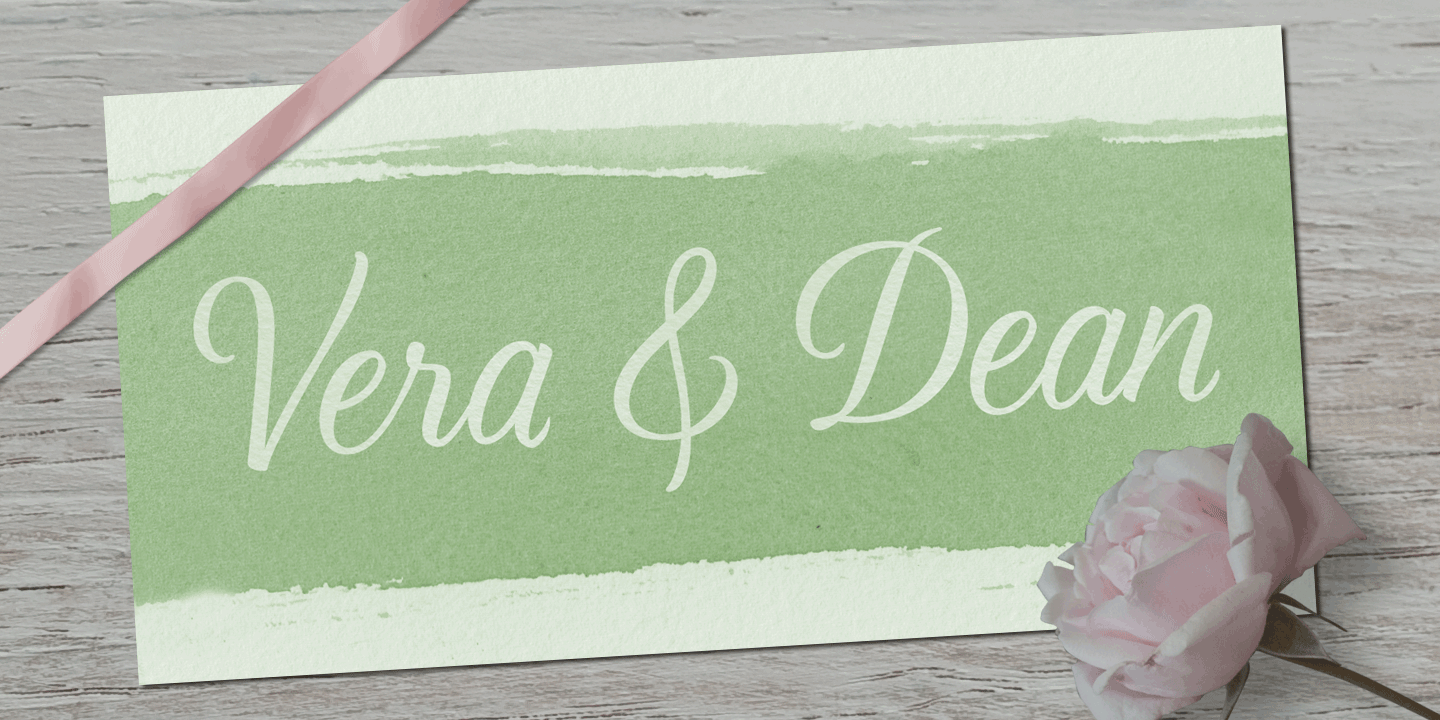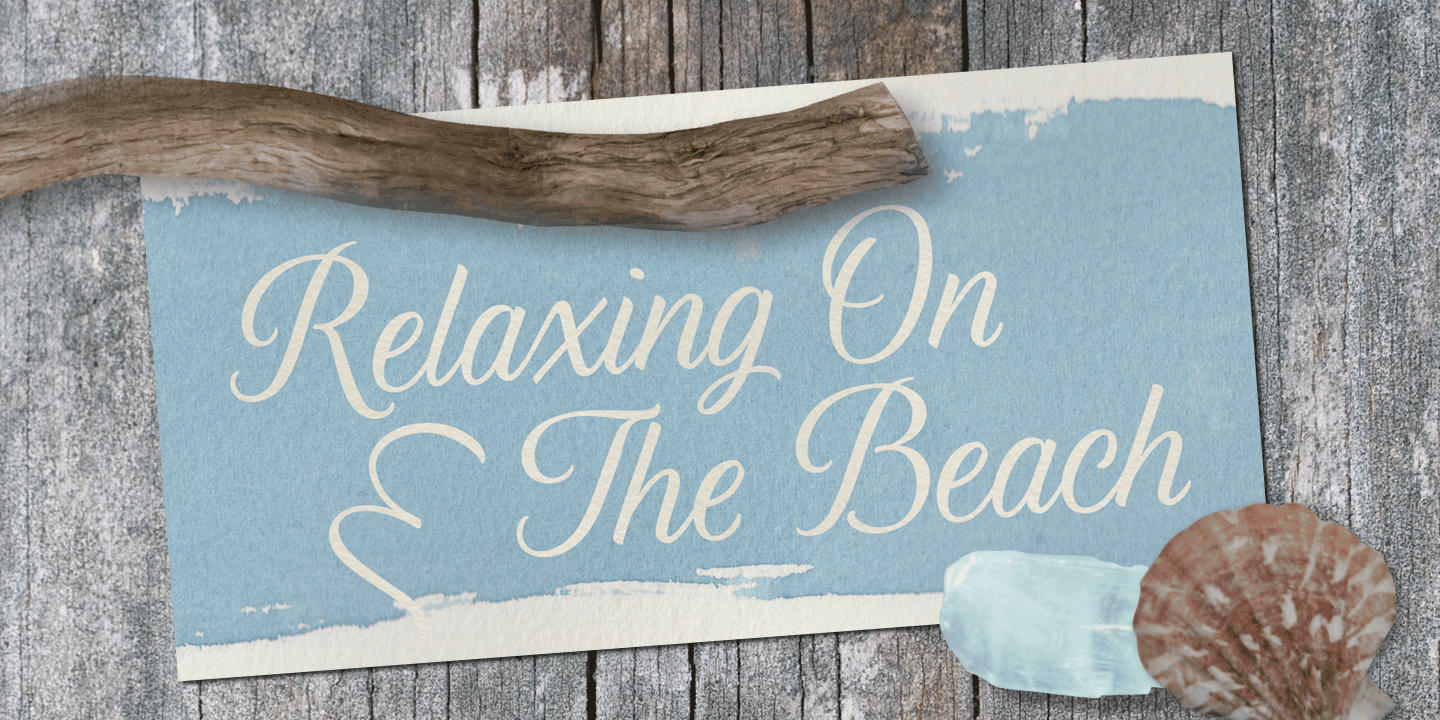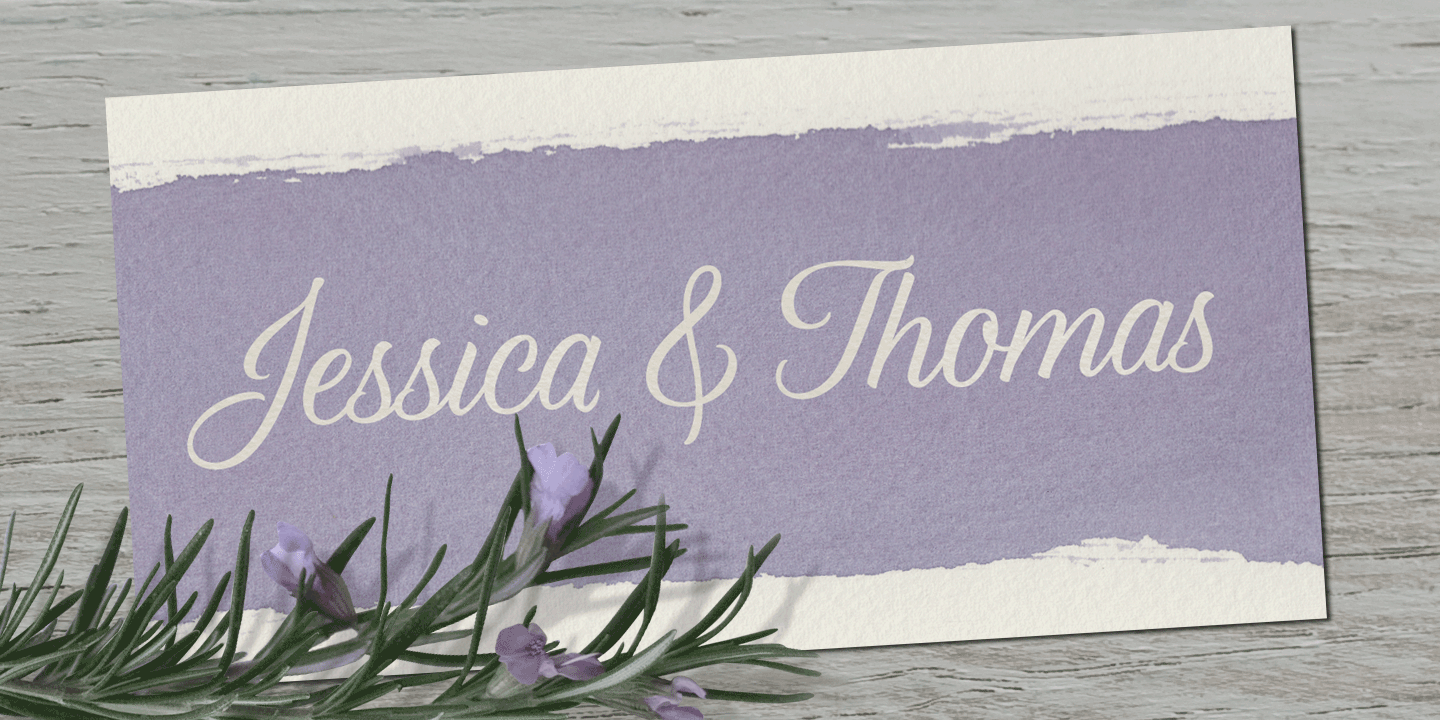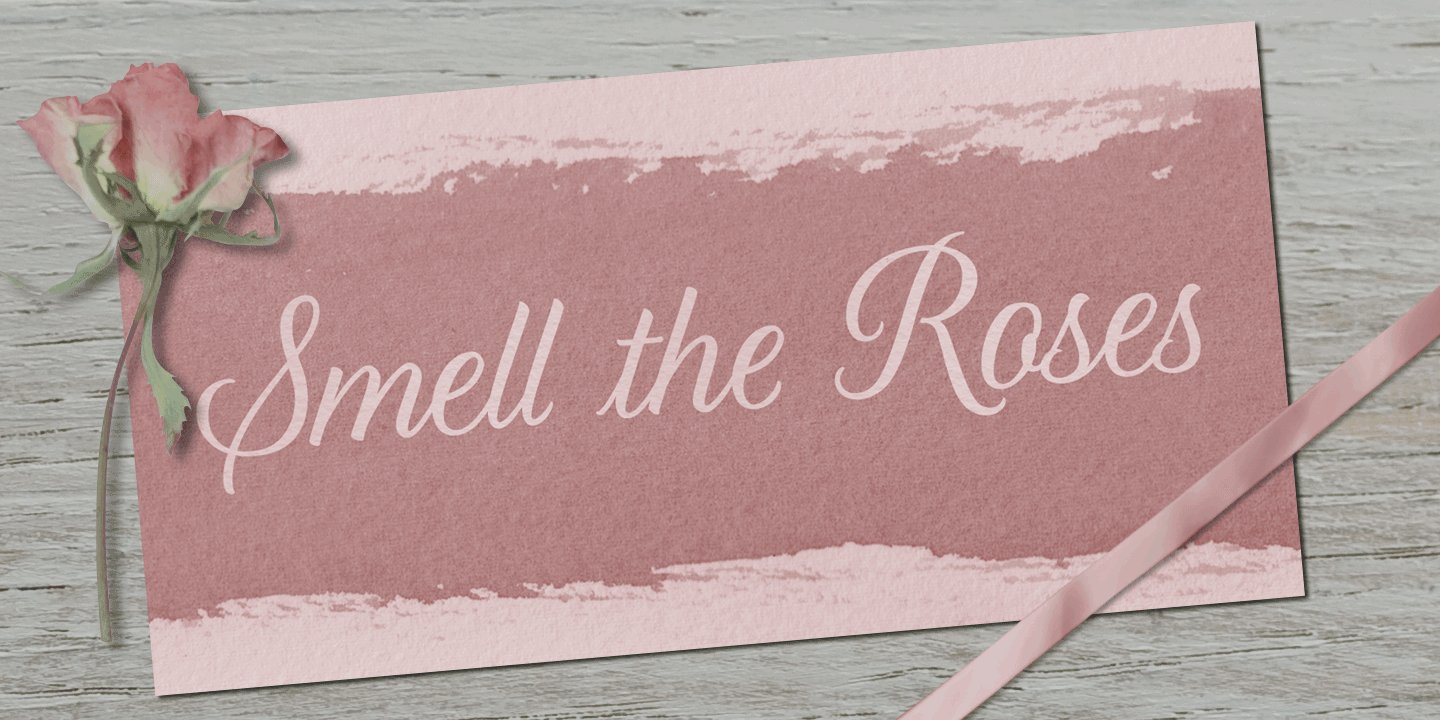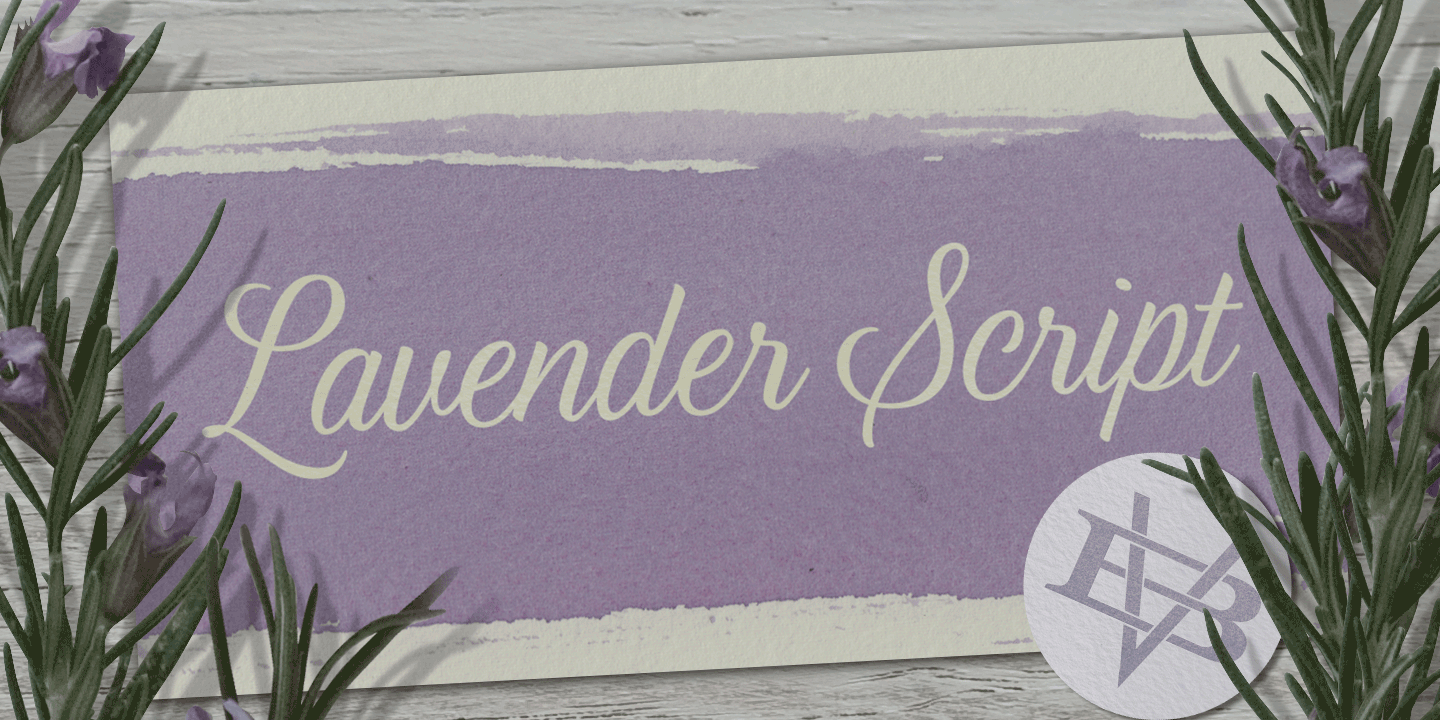
HomeFont BrosHandwrittenLavender Script HandwrittenScripts: FormalScripts: Casual Lavender Script FacebookXPinterestWhatsApp 1 of 5 About Lavender Script is a brush drawn script face done in the copperplate style. It's not overly flourished so it fits nicely in almost any situation. It's loaded with alternates, so you have options.  DOWNLOAD NOW People also explored Lucky Smith Font Ball Boy Font Acterum Font Ratity Font Summer Scent Font Halloween Font Raffina Font Romero Font Beloved Font 329 0 TagsLavender Script Font Previous articleFold And Staple BBNext articleMr Canfields LEAVE A REPLY Cancel reply Comment: Please enter your comment! Name:* Please enter your name here Email:* You have entered an incorrect email address! Please enter your email address here Website: Save my name, email, and website in this browser for the next time I comment. Personal Use Free Whoa Personal Use Free Read more about this font Eniem Personal Use Free Read more about this font Wintersoul Personal Use Free Read more about this font Dakwart Letter Personal Use Free Read more about this font BLOG Free vs Paid Fonts: Why Investing in Premium Fonts Is Worth It Free vs Paid Fonts: Why Premium Fonts Are Worth It in 2025 The debate of free vs paid fonts continues in the design world. While... Elegant Wedding Invitation Fonts – Handwritten & Script Fonts The 10 Best Handwriting Fonts to Add Personality to Your Designs Free Fonts Risk: Why Free Fonts Can Be Dangerous for Designers